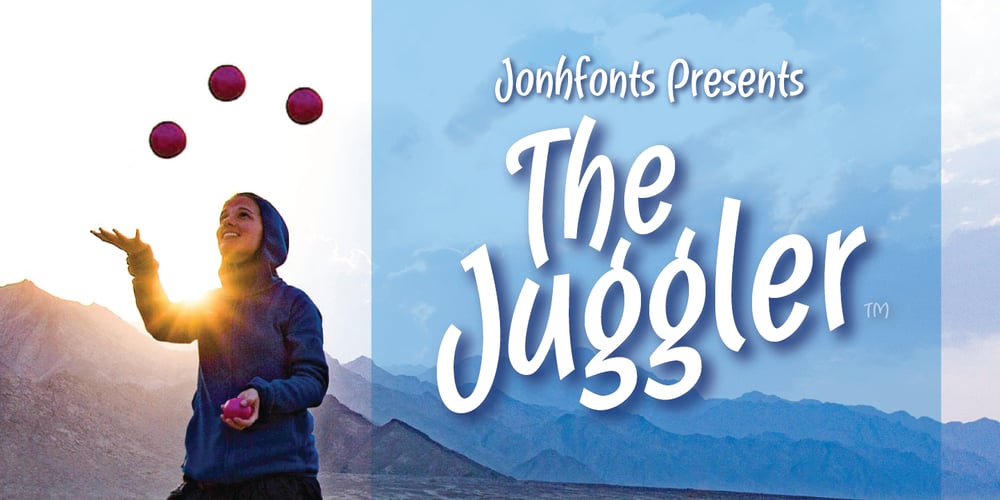
Juggler Font Family was designed by John Nahmias and published by Jonahfonts. Juggler contains 4 styles and family package options. Juggler is a medium-line font suitable for work requiring a friendly style. Ideal for packaging, also suitable for special invitations, birthday cards, posters, ads and book jackets.